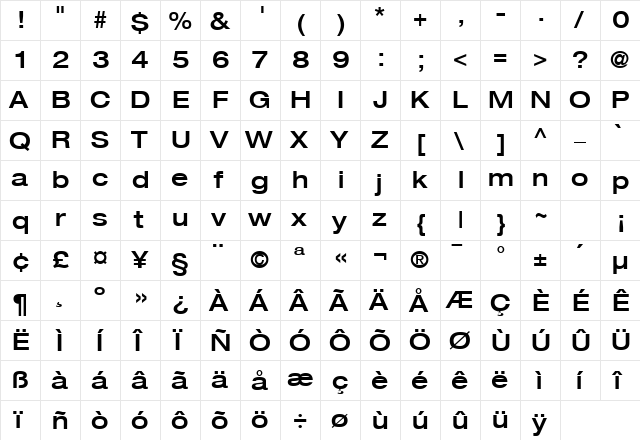
HeaveneticaExtd6 MedSH
Design Context for HeaveneticaExtd6 Typeface
HeaveneticaExtd6 takes a measured approach to typography — its balanced proportions and neutral character make it a reliable workhorse for both digital and print work.
Pro Tip: Use HeaveneticaExtd6 in both headline and body roles to test its range before committing to a single application.